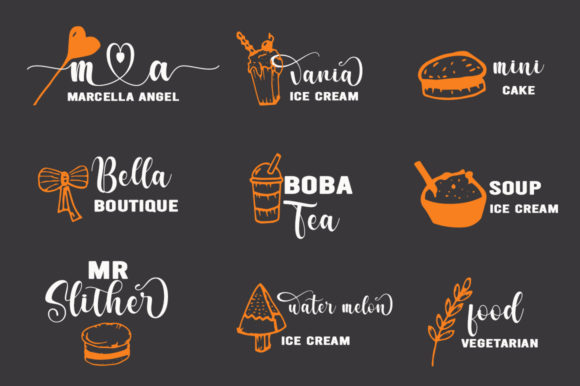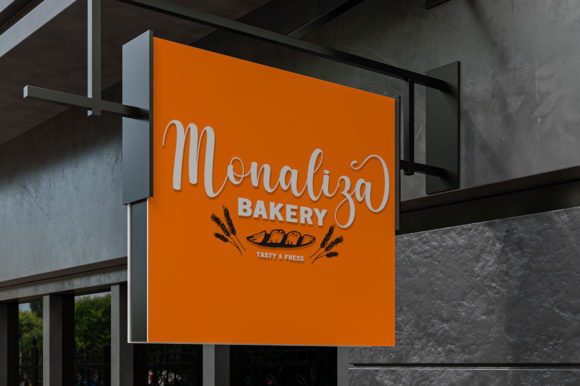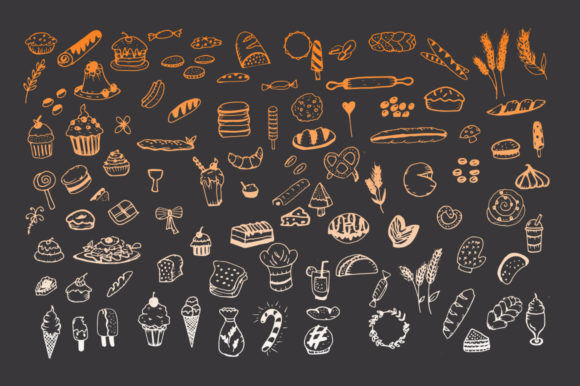
Introduction to Slither Bakery Font
Slither Bakery is a lovely and adaptable duo font (sans serif and script).
This font is PUA encoded which means you can access all of the glyphs and swashes with ease Fall for its ravishing style and use it to create gorgeous designs.
Slither Bakery Font offers exceptional quality and versatility, making it a valuable addition to your design toolkit. Whether you’re creating for personal projects or commercial use, Slither Bakery Font delivers professional results.